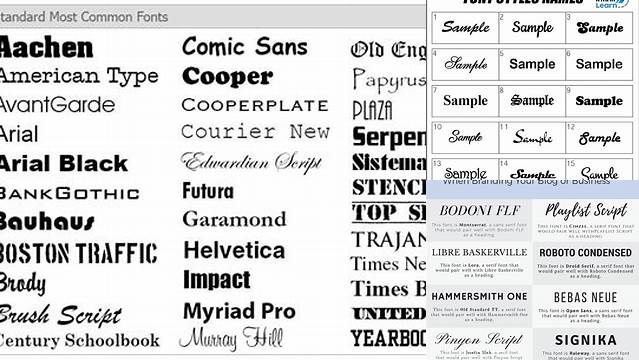
Font Names: Your Guide To Every Type Of Font
Fonts, guys, are the unsung heroes of design. They whisper (or shout!) personality into every project, from websites to wedding invites. Knowing your fonts is like having a secret weapon in your creative arsenal. This comprehensive guide dives deep into the world of fonts, covering everything from common font types to font pairing and management. So, buckle up, font fanatics – let's get started!
Serif Fonts: The Timeless Classics
Serif fonts are characterized by the small decorative strokes, or "serifs," at the end of each character. These fonts often convey a sense of tradition, authority, and elegance. Think of them as the black-tie attire of the font world. They're reliable, readable, and have been a staple in print for centuries. Serif fonts are incredibly versatile and their appeal spans many years. They have been a foundational style in use, as they continue to evolve with new, exciting types emerging.
Common Serif Fonts:
- Times New Roman: Possibly the most ubiquitous serif font, Times New Roman is a workhorse for body text. It’s clear, legible, and gets the job done, although some consider it a bit overused.
- Garamond: A classic choice with a refined and elegant appearance. Garamond exudes sophistication and is often used in books, magazines, and branding materials for high-end products. Its delicate serifs and balanced proportions make it a joy to read.
- Georgia: Designed specifically for on-screen readability, Georgia is a robust serif font that holds up well even at smaller sizes. It's a great alternative to Times New Roman for websites and digital documents. Georgia's wider proportions and thicker strokes enhance its legibility on screens, making it a popular choice for online publications and blogs.
- Didot: With its high contrast between thick and thin strokes, Didot is a glamorous serif font often used in fashion magazines and luxury branding. It's a font that demands attention and conveys a sense of high style.
- Playfair Display: A more modern take on the serif, Playfair Display is often used for headlines and titles. It has a strong, elegant presence that adds a touch of sophistication to any design. Its tall ascenders and descenders give it a distinctive and refined look, making it perfect for creating eye-catching headings and titles.
Sans-Serif Fonts: The Modern Minimalists
Sans-serif fonts, meaning "without serifs" in French, are characterized by their clean, simple lines. These fonts are often associated with modernity, minimalism, and clarity. Think of them as the jeans and t-shirt of the font world – comfortable, versatile, and always in style. These fonts are easily adapted to many uses and are an excellent choice to remain readable and pleasing to the eye. They are the staple of much web design due to their ease of display.
Common Sans-Serif Fonts:
- Arial: Another ubiquitous font, Arial is a clean and legible sans-serif that's often used as a default font in many applications. While it may not be the most exciting choice, it's a reliable option for body text and general use. Arial's neutrality makes it a safe bet for situations where clarity and readability are paramount.
- Helvetica: A design classic, Helvetica is known for its clean, neutral appearance. It's a versatile font that can be used in a wide range of applications, from logos to signage to body text. Helvetica's simplicity and elegance have made it a favorite among designers for decades.
- Open Sans: Designed with readability in mind, Open Sans is a humanist sans-serif font that's optimized for use on screens. It's a great choice for websites, apps, and other digital interfaces. Its open forms and neutral appearance make it easy on the eyes, even when reading large blocks of text.
- Roboto: A modern sans-serif font family developed by Google, Roboto is widely used in Android and other Google products. It's a versatile font that works well for both headlines and body text. Roboto's clean lines and geometric shapes give it a contemporary and approachable feel.
- Lato: Lato is a stylish sans-serif font with a slightly rounded appearance. It's a great choice for adding a touch of warmth and personality to your designs. Lato's subtle curves and balanced proportions make it a versatile option for a variety of applications.
Script Fonts: The Elegant Calligraphers
Script fonts mimic the flowing strokes of handwriting. They add a touch of elegance, personality, and romance to designs. Think of them as the handwritten love letters of the font world – personal, expressive, and full of character. However, use them sparingly, as they can be difficult to read in large blocks of text. The best use of script fonts is for invitations, titles, and when highlighting a particular aesthetic.
Common Script Fonts:
- Brush Script: A classic script font with a bold, brush-like appearance. Brush Script is often used for headlines, posters, and other display purposes. Its casual and energetic style adds a touch of fun and informality to designs.
- Pacifico: A fun and friendly script font that evokes a sense of retro charm. Pacifico is often used for logos, websites, and other designs that need a touch of personality. Its rounded forms and playful curves give it a cheerful and inviting feel.
- Lobster: A bold and eye-catching script font with a vintage feel. Lobster is often used for headlines, logos, and signage. Its strong presence and distinctive letterforms make it a popular choice for creating attention-grabbing designs.
- Great Vibes: An elegant and flowing script font that's perfect for wedding invitations, greeting cards, and other formal occasions. Great Vibes exudes sophistication and grace, adding a touch of refinement to any design.
- Dancing Script: A casual and playful script font that's perfect for adding a touch of fun to your designs. Dancing Script has a bouncy, irregular baseline that gives it a whimsical and lighthearted feel. It is a great choice when adding a bit of personality and is readable enough for many applications.
Decorative Fonts: The Whimsical Artists
Decorative fonts are the wild cards of the font world. They come in all shapes and sizes and often feature unique and unconventional designs. Think of them as the avant-garde artists of the font world – experimental, expressive, and always pushing boundaries. These fonts often are inspired by niche uses such as medieval scripts, old west wanted posters, and other artistic sources.
Common Decorative Fonts:
- Impact: A bold and impactful font that's perfect for headlines and posters. Impact demands attention and conveys a sense of urgency and importance. While Impact can be highly effective, it should be used in moderation to retain its value.
- Comic Sans MS: A controversial font that's often used in informal settings. Comic Sans MS is known for its childlike appearance and is often considered to be unprofessional by designers. However, it can be a fun and playful choice for certain applications.
- Papyrus: Another controversial font that's often associated with amateur design. Papyrus is known for its textured appearance and is often used to evoke a sense of antiquity or exoticism. However, it's important to use Papyrus sparingly, as it can easily look dated or cliché.
- Stencil: A font that mimics the look of stenciled letters. Stencil is often used for military, industrial, or urban-themed designs. Its bold and rugged appearance gives it a strong and assertive feel.
- Creepster: A spooky and ghoulish font that's perfect for Halloween-themed designs. Creepster features dripping, decaying letterforms that evoke a sense of horror and suspense.
Monospace Fonts: The Uniform Coders
Monospace fonts are characterized by their fixed-width characters, meaning each letter occupies the same amount of horizontal space. These fonts are often used in coding, typewriting, and other technical applications. Think of them as the precise engineers of the font world – consistent, reliable, and highly functional. These fonts are best when used to display digital information such as in programming, or when attempting to mock the presence of a typewriter.
Common Monospace Fonts:
- Courier New: A classic monospace font that's often used for coding and typewriting. Courier New is known for its clean and legible appearance, making it a reliable choice for technical applications.
- Consolas: A modern monospace font that's designed for on-screen readability. Consolas is a popular choice among programmers and developers due to its clear and crisp letterforms.
- Monaco: A sleek and stylish monospace font that's often used in Apple products. Monaco is known for its elegant appearance and is a popular choice among designers and developers alike.
- Source Code Pro: An open-source monospace font that's designed specifically for coding. Source Code Pro features clear and distinct letterforms that make it easy to differentiate between similar characters.
- Ubuntu Mono: A monospace font that's part of the Ubuntu font family. Ubuntu Mono is known for its rounded forms and humanist design, giving it a more approachable and friendly feel than some other monospace fonts.
So, there you have it – a whirlwind tour of the wonderful world of fonts! Hopefully, this guide has armed you with the knowledge you need to choose the perfect fonts for your next project. Remember, the right font can make all the difference, so don't be afraid to experiment and have fun! Now, go forth and create something beautiful (and legible)!